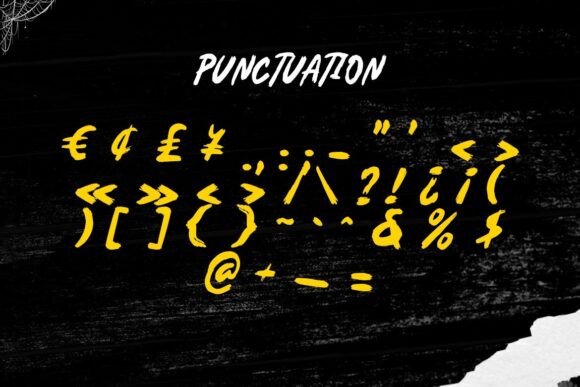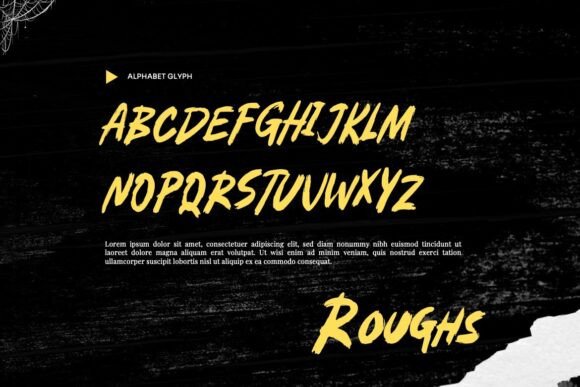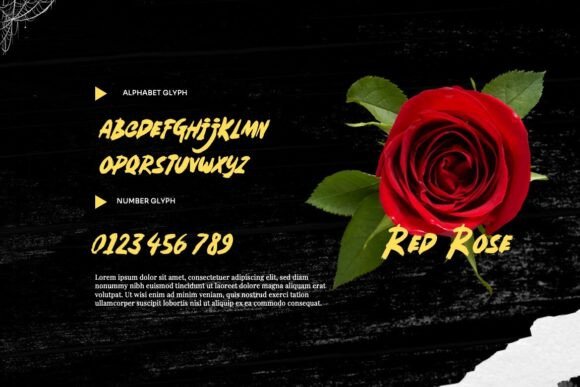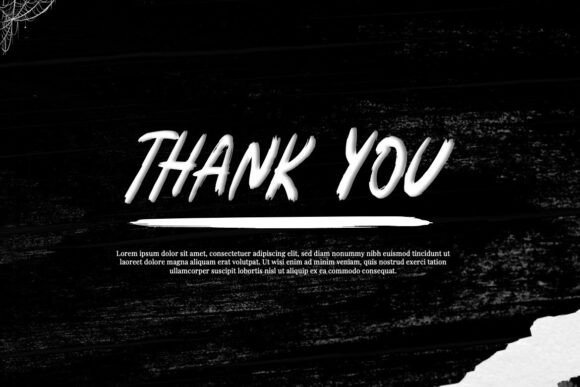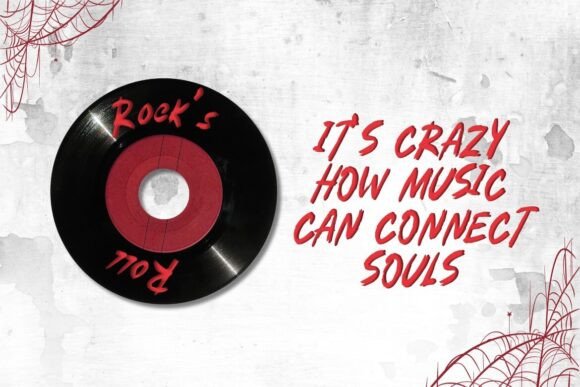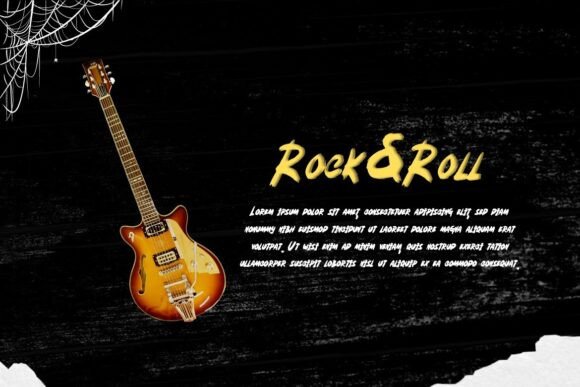
Unleash Your Creativity with Brush Haefunz: The Edgy, Textured Brush Typeface
Are you tired of using the same old fonts in your designs? Do you want to add a bold and impactful touch to your sports posters, urban branding, graffiti-inspired designs, and promotional materials? Look no further than Brush Haefunz, the edgy, textured brush typeface that’s bursting with energy. In this article, we’ll explore the unique features of Brush Haefunz and how it can help you make a statement with your designs.
The Unique Characteristics of Brush Haefunz
Brush Haefunz is a rough, hand-drawn typeface that’s perfect for designers and crafters who want to add a touch of grit and urban charm to their work. Its textured strokes create a bold and eye-catching look that’s sure to grab attention. Unlike traditional fonts, Brush Haefunz has a raw, unpolished feel that’s reminiscent of graffiti and street art. This makes it perfect for designs that require a bold and edgy aesthetic.
Perfect for Sports Posters and Urban Branding
Sports posters and urban branding require a font that’s bold, energetic, and attention-grabbing. Brush Haefunz fits the bill perfectly. Its rough, textured strokes evoke the energy and excitement of sports and urban culture, making it perfect for designs that need to stand out from the crowd. Whether you’re creating a poster for a sports event or a brand identity for an urban clothing line, Brush Haefunz is the perfect choice.
Adding a Graffiti-Inspired Touch to Your Designs
Graffiti-inspired designs are all about bold, edgy aesthetics, and Brush Haefunz is the perfect font to add to your arsenal. Its rough, hand-drawn strokes are reminiscent of graffiti art, making it perfect for designs that require a raw, urban feel. Whether you’re creating a poster, flyer, or social media graphic, Brush Haefunz is sure to add a touch of grit and attitude to your design.
Promotional Materials that Pack a Punch
When it comes to promotional materials, you want a font that’s going to grab attention and make a statement. Brush Haefunz is the perfect choice. Its bold, textured strokes create a look that’s both eye-catching and memorable, making it perfect for designs that need to stand out from the crowd. Whether you’re creating a brochure, flyer, or business card, Brush Haefunz is sure to make a lasting impression.
Tips for Using Brush Haefunz in Your Designs
Here are a few tips for using Brush Haefunz in your designs:
• Use it boldly: Brush Haefunz is a bold font, so don’t be afraid to use it in large sizes to make a statement.
• Experiment with colors: Brush Haefunz looks great in bold, bright colors, so don’t be afraid to experiment with different color schemes.
• Mix it with other fonts: Brush Haefunz works great when paired with other fonts, so try mixing it with a clean, sans-serif font to create contrast.
Brush Haefunz is a game-changing font that’s perfect for designers and crafters who want to add a bold and edgy touch to their work. Its rough, hand-drawn strokes create a look that’s both eye-catching and memorable, making it perfect for sports posters, urban branding, graffiti-inspired designs, and promotional materials. With its unique characteristics and versatility, Brush Haefunz is sure to become a go-to font in your design arsenal. So why wait? Make a statement with Brush Haefunz and take your designs to the next level.